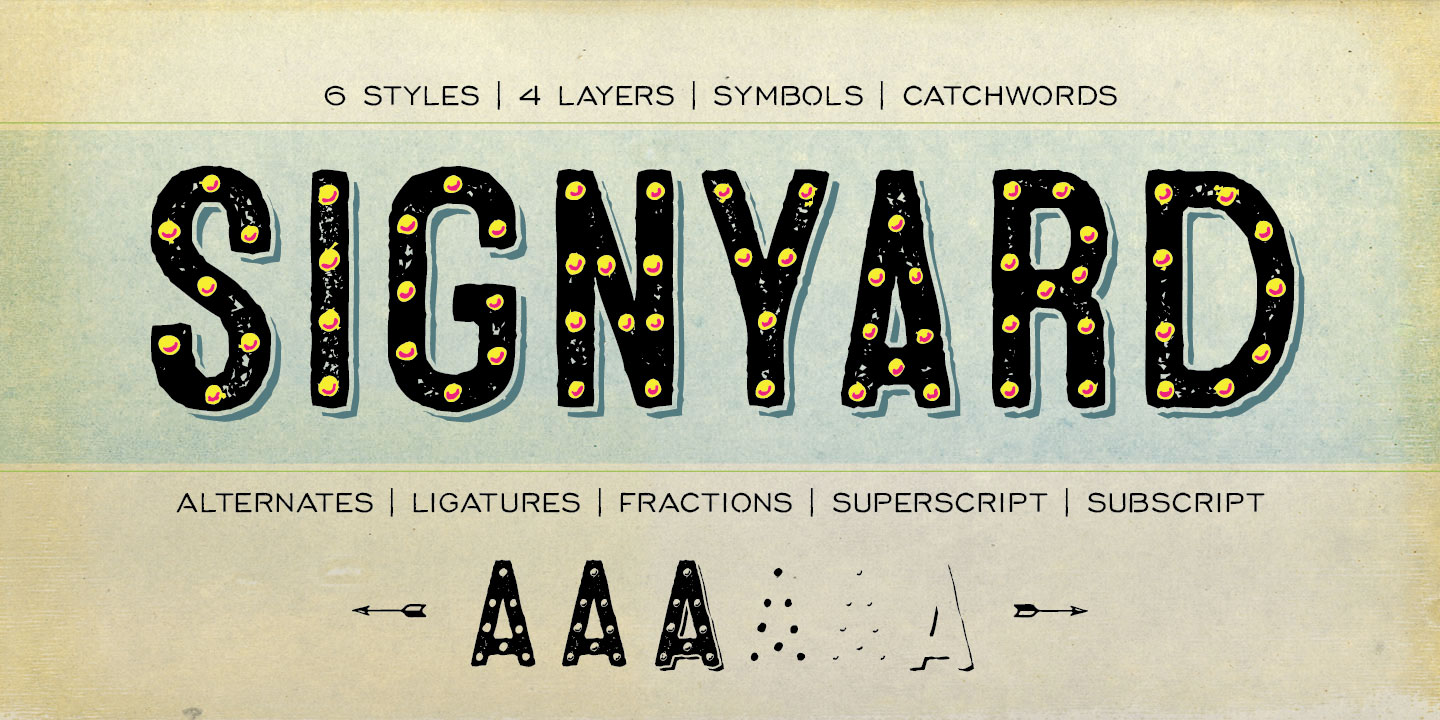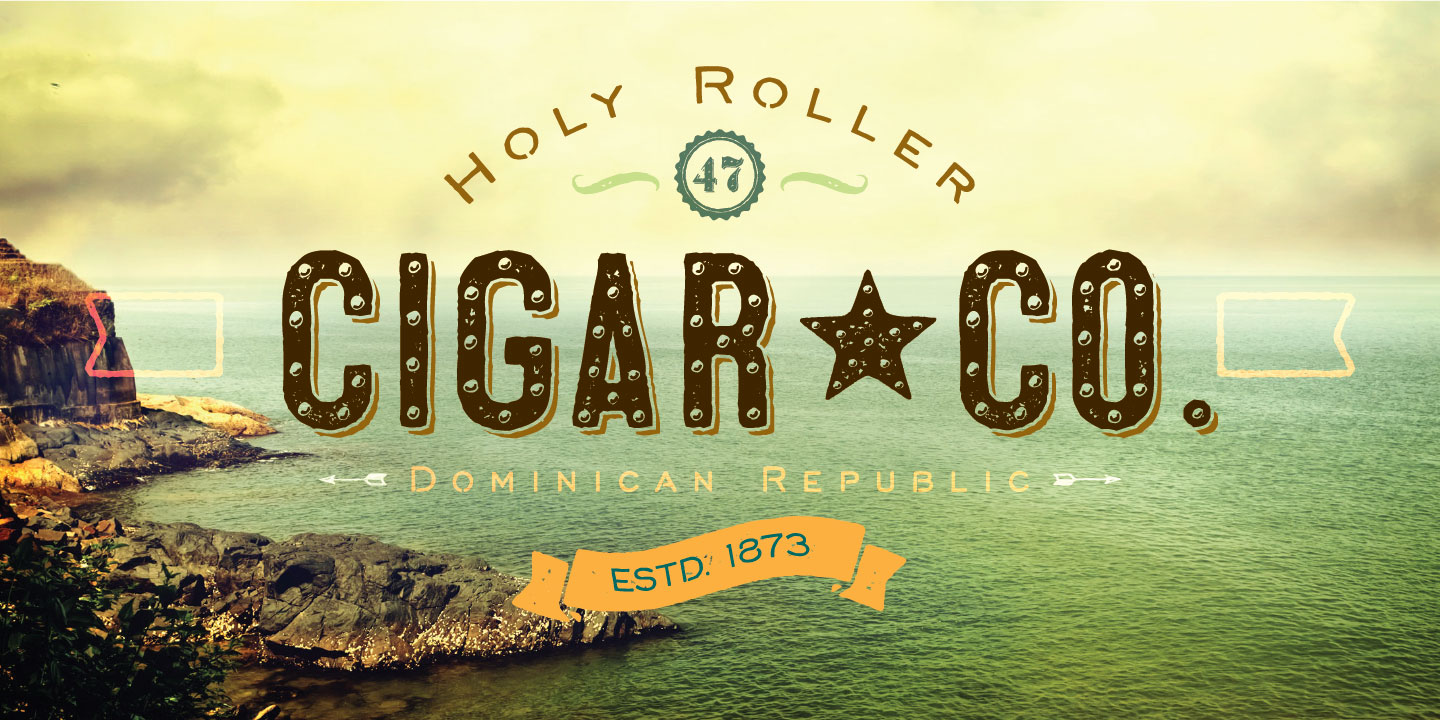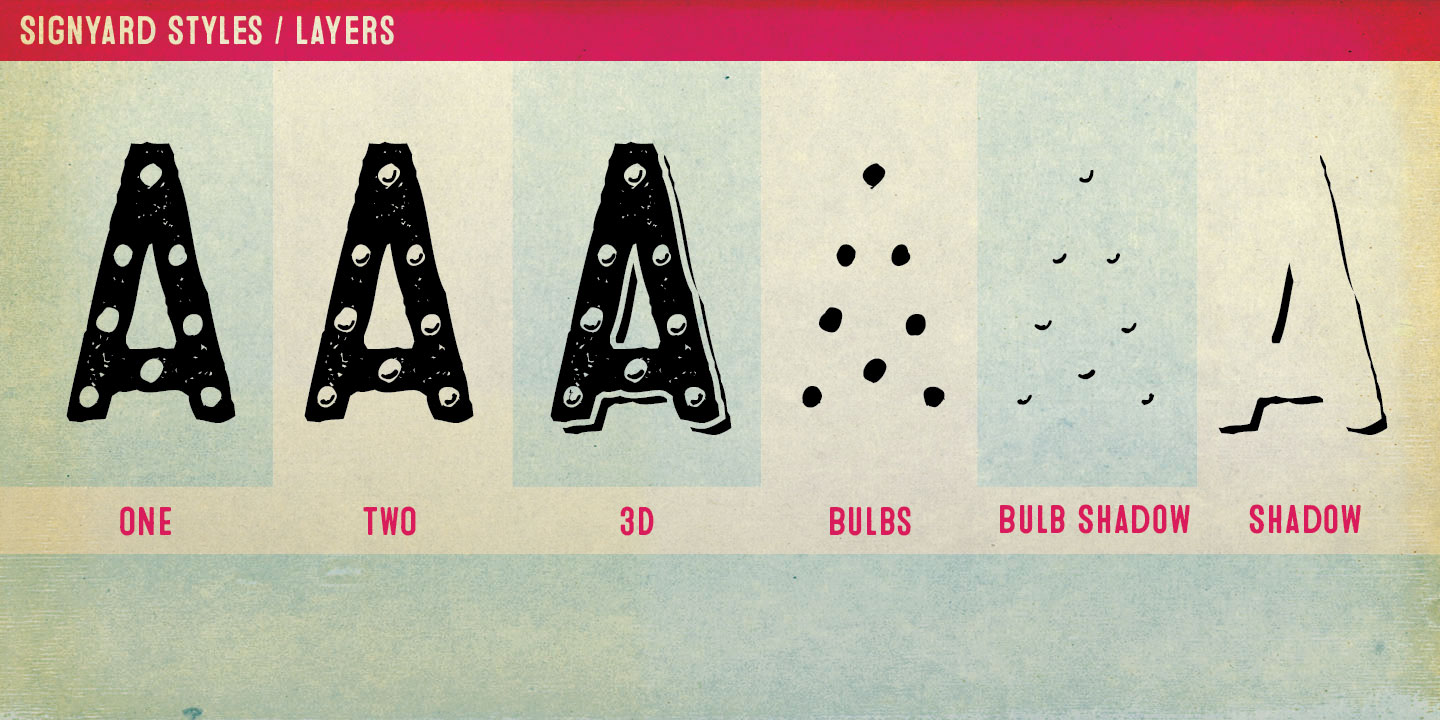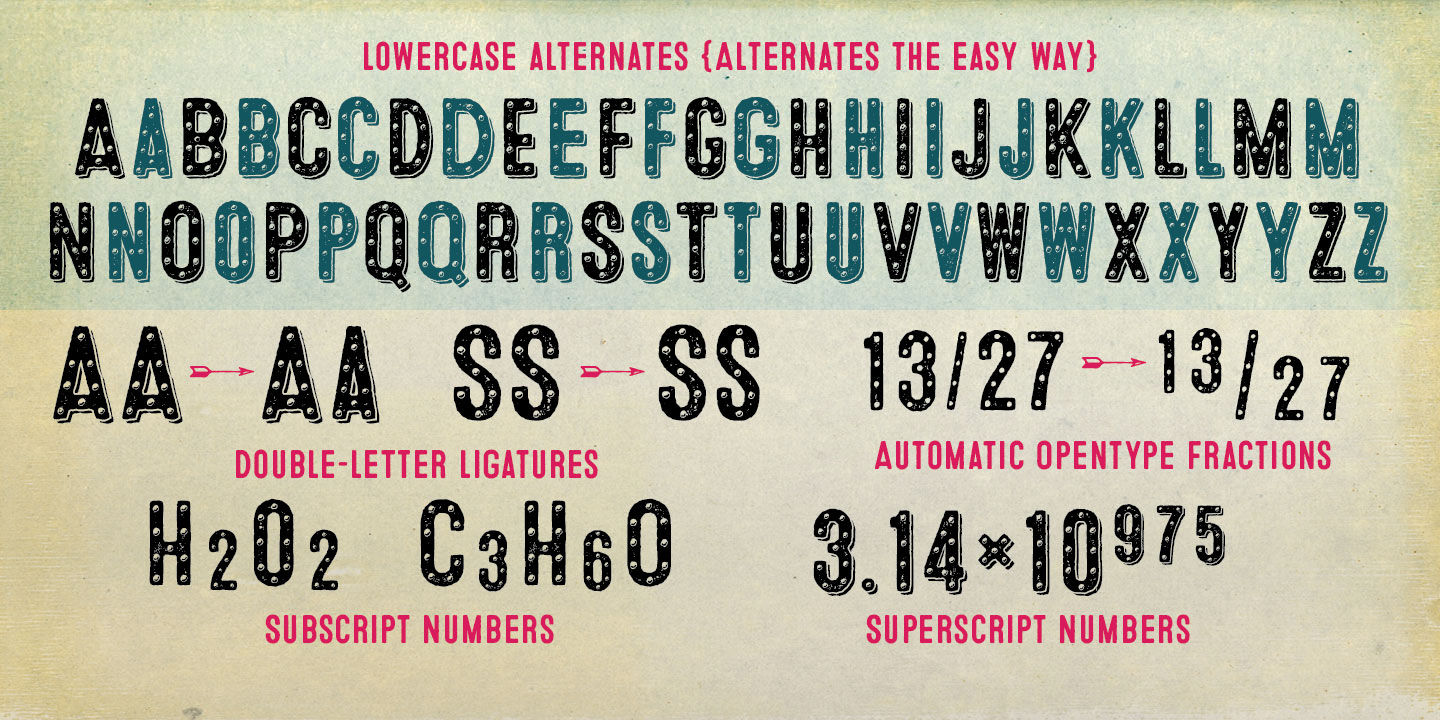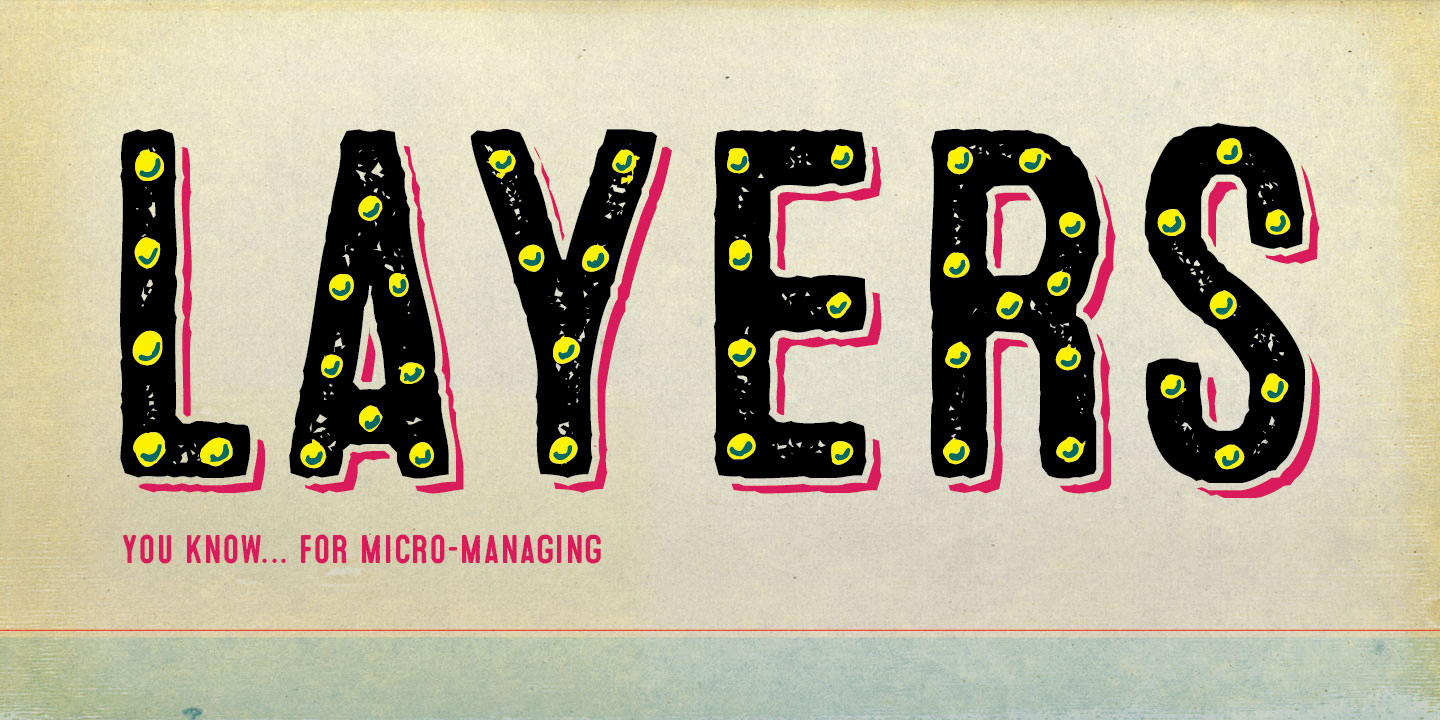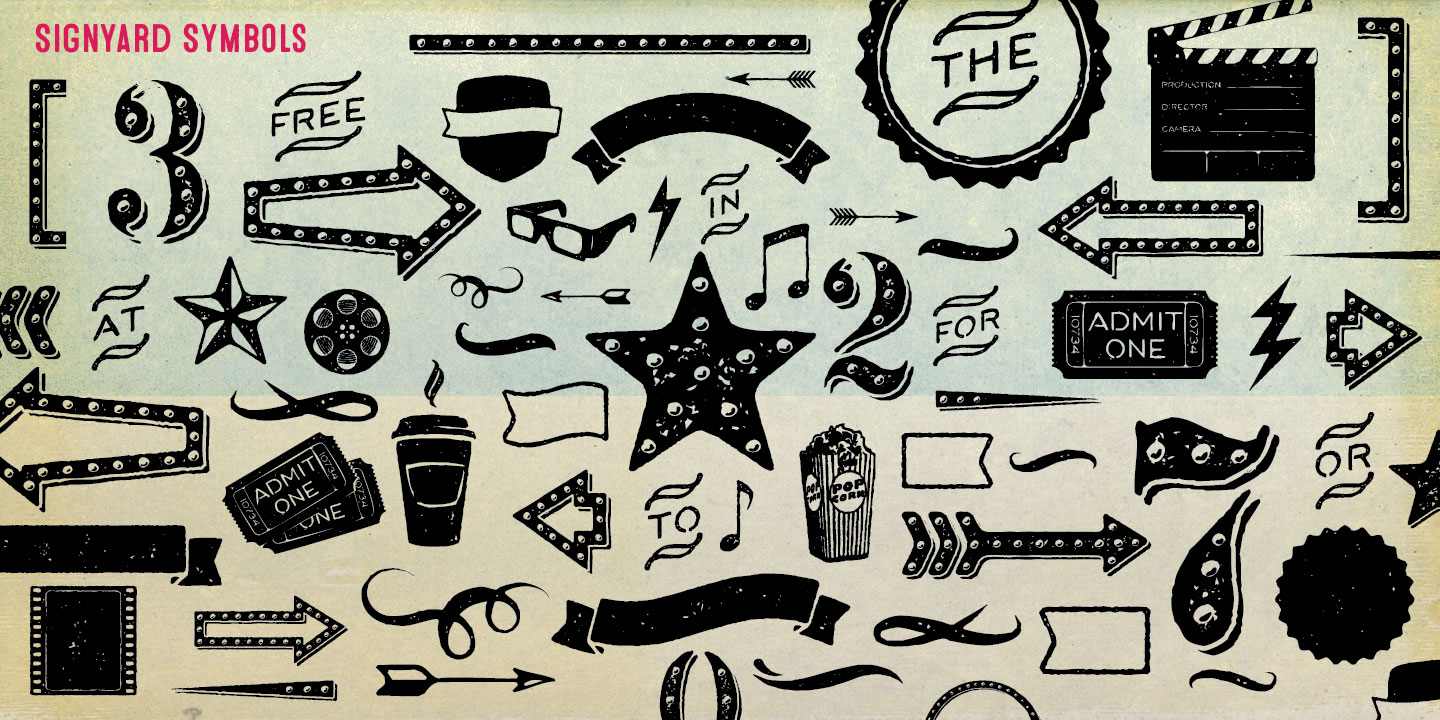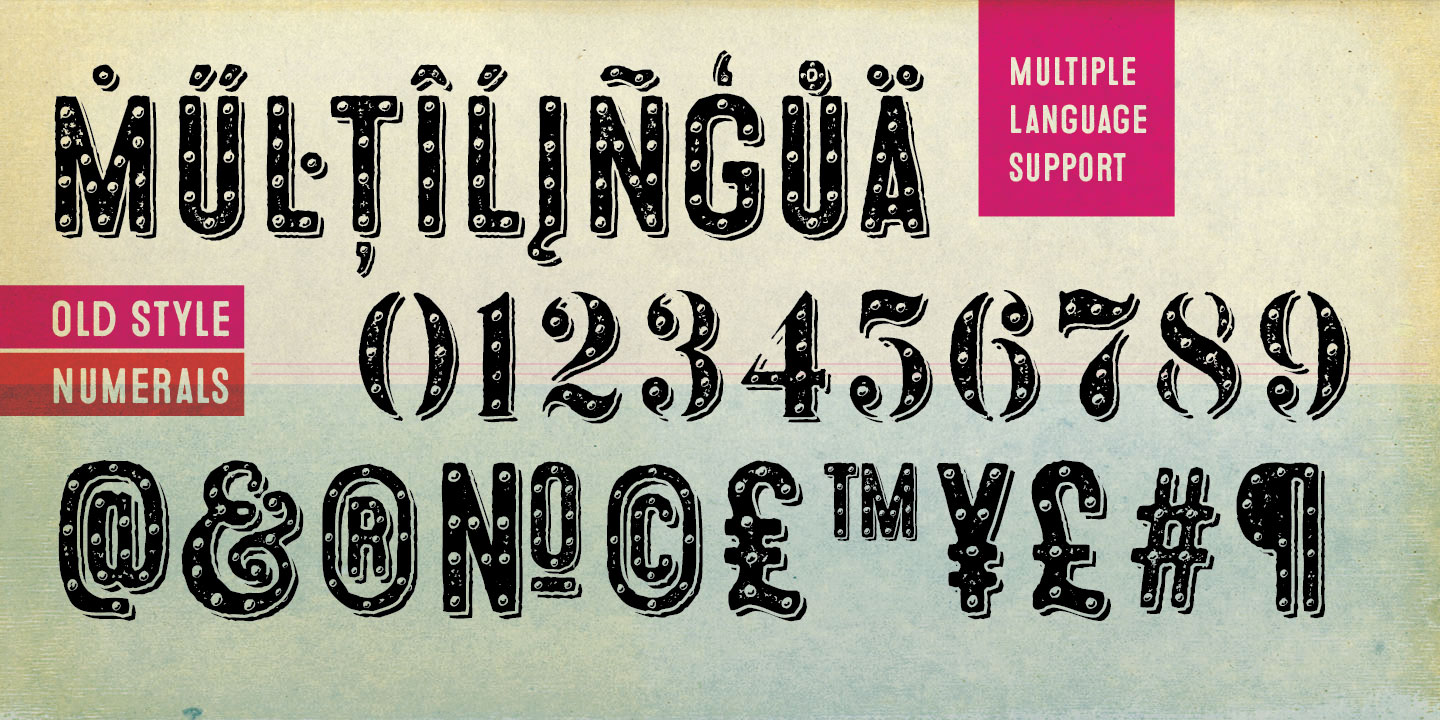
Signyard
Font Family by Albatross
Based on the popular Microbrew Family, Signyard is a display family trapped in time. Inspired by vintage restaurant and hotel signs, Signyard comes decked out in incandescent bulbs for a an authentic retro feel. The family has a unique vintage cinema style, but also works well with a variety of subject matter including weddings, birthdays, breweries, coffee houses, cigar shops, and many more.
Signyard is an all caps display font, but the lowercase act as alternates. For super-easy alternates, just mix uppercase and lowercase letters. To add to the realism, Signyard includes double-letter ligatures.
Sporting a healthy compliment of features and languages, Signyard is a very versatile display family. Signyard features 6 styles, 4 layers, symbols and opentype features. Opentype features include automatic fractions, subscript numbers, superscript numbers, and double-letter ligatures. Also included are old style numerals, and catchwords. (in the symbols font)